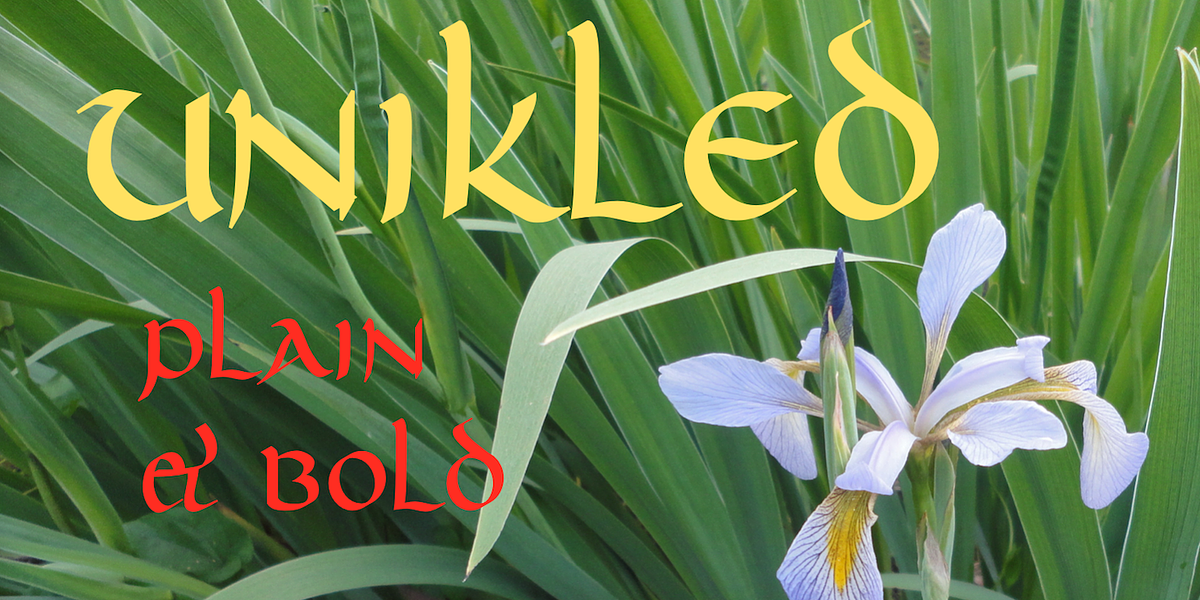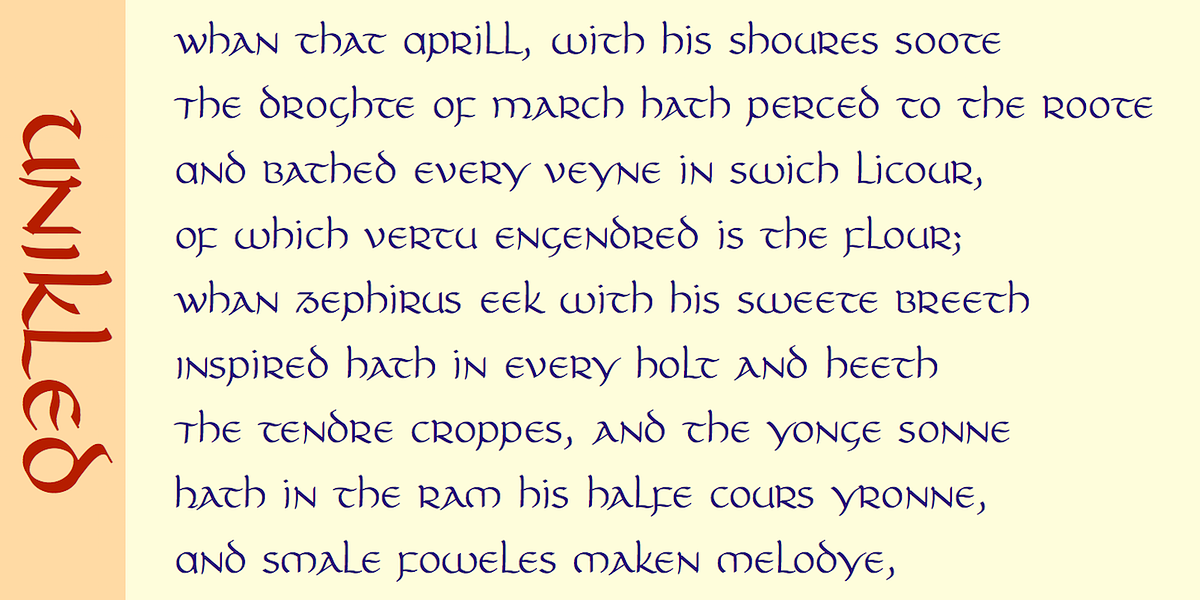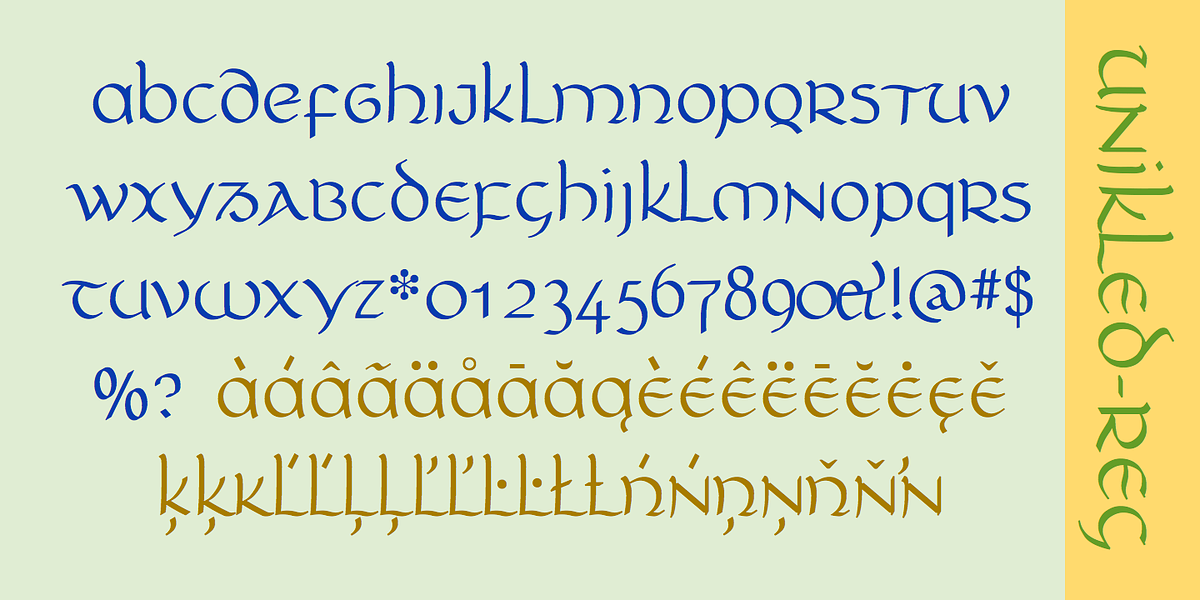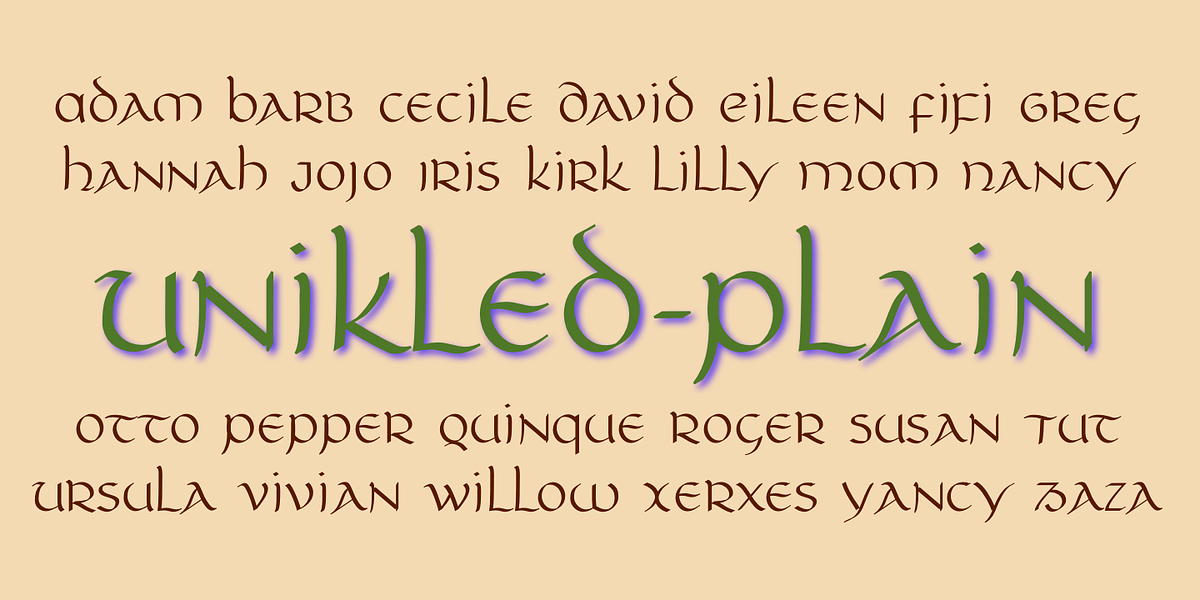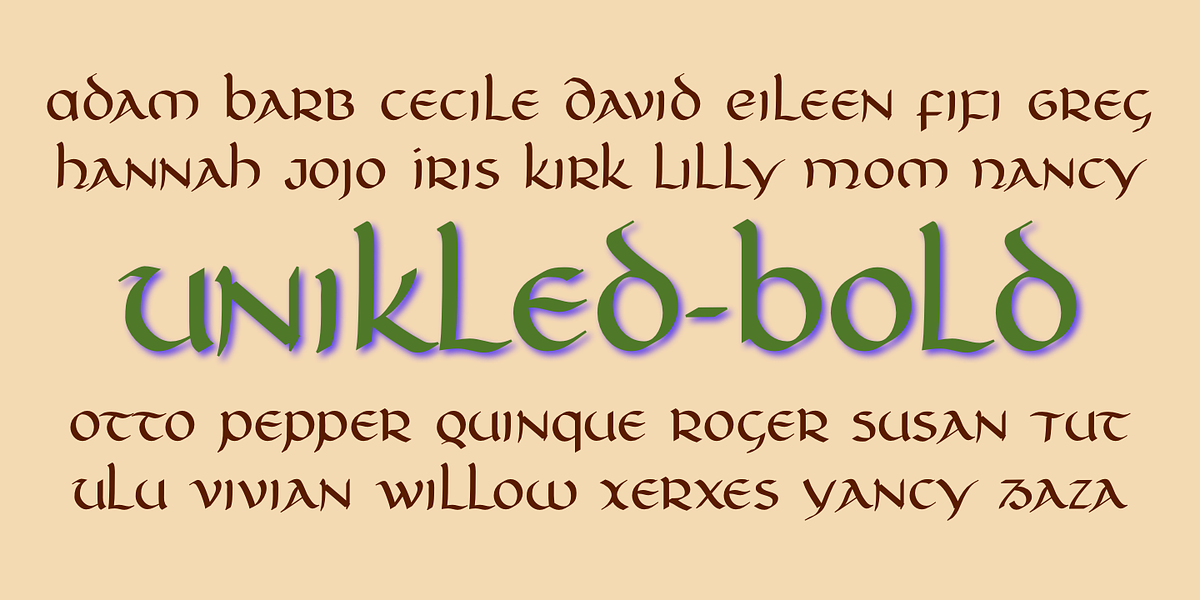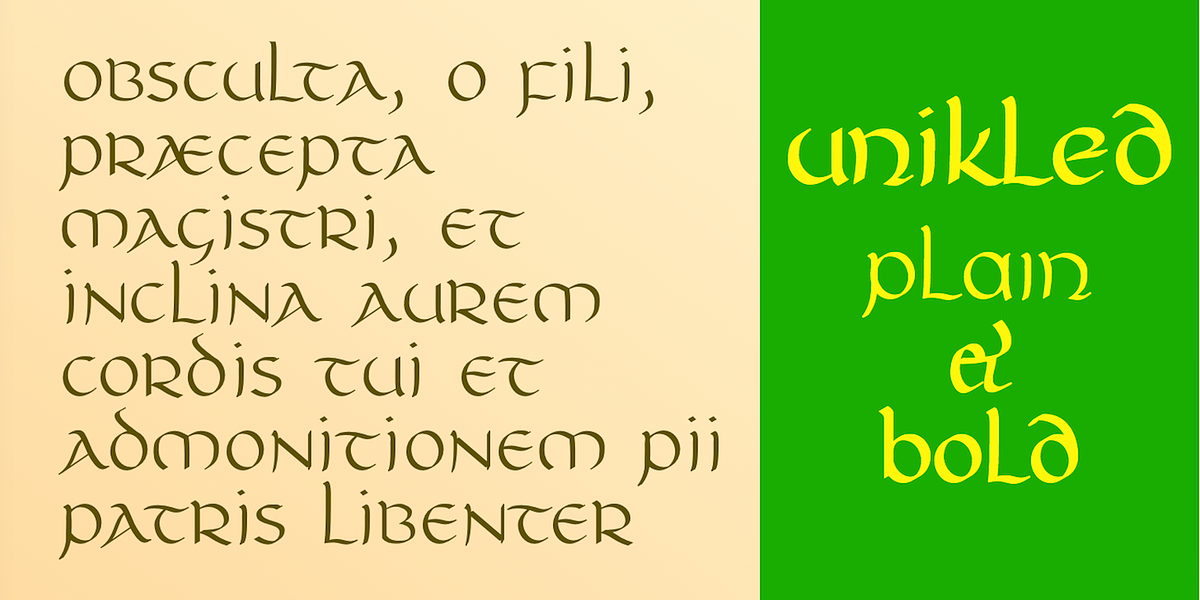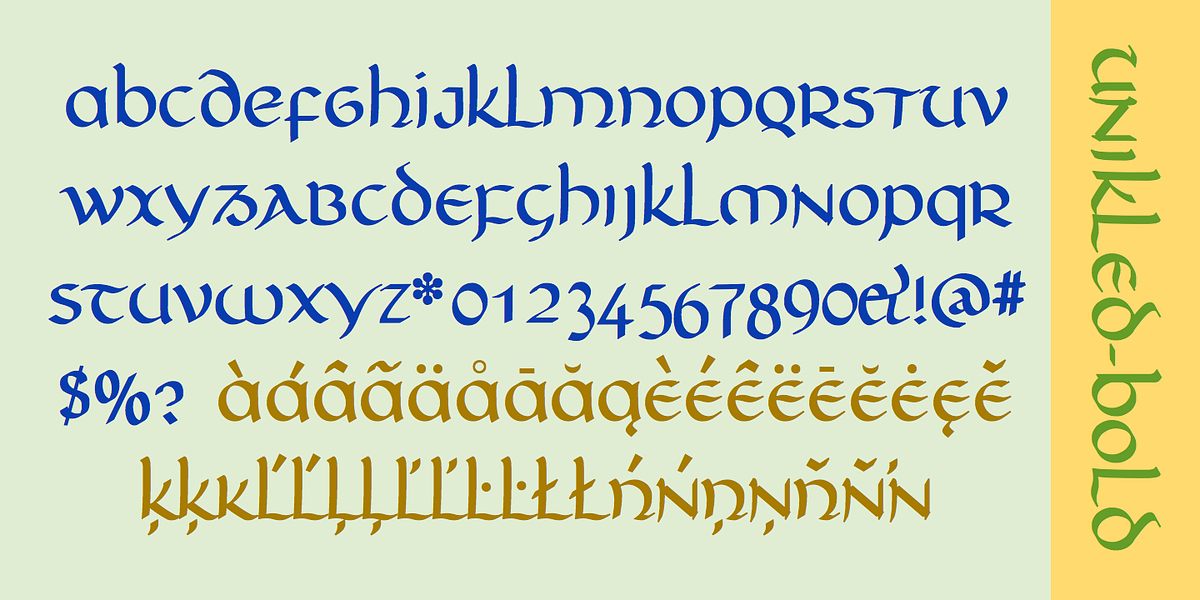
Unikled
Unikled is a calligraphic script font inspired by the uncial style. It's characterized by its distinct uppercase and lowercase designs, which can be treated as separate alphabets. The font comes in two weights: plain and bold. Its handmade quality and exotic aesthetic make it suitable for decorative purposes.